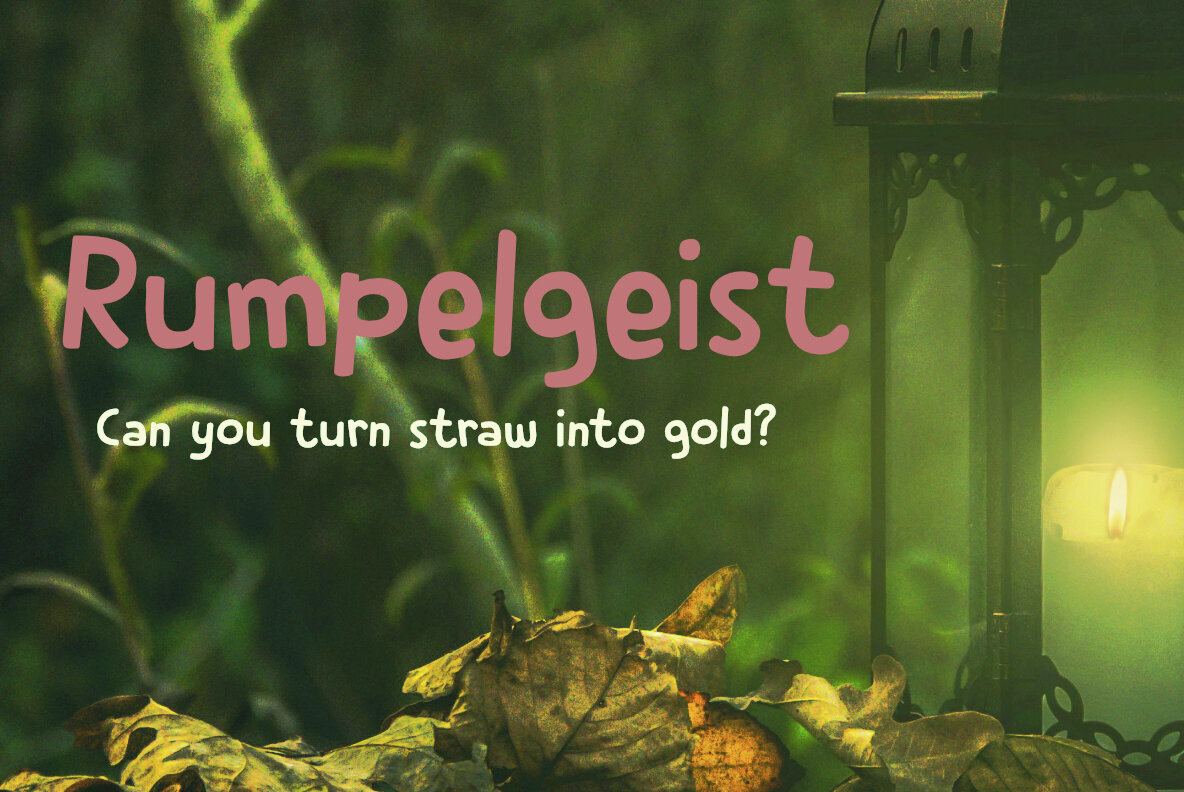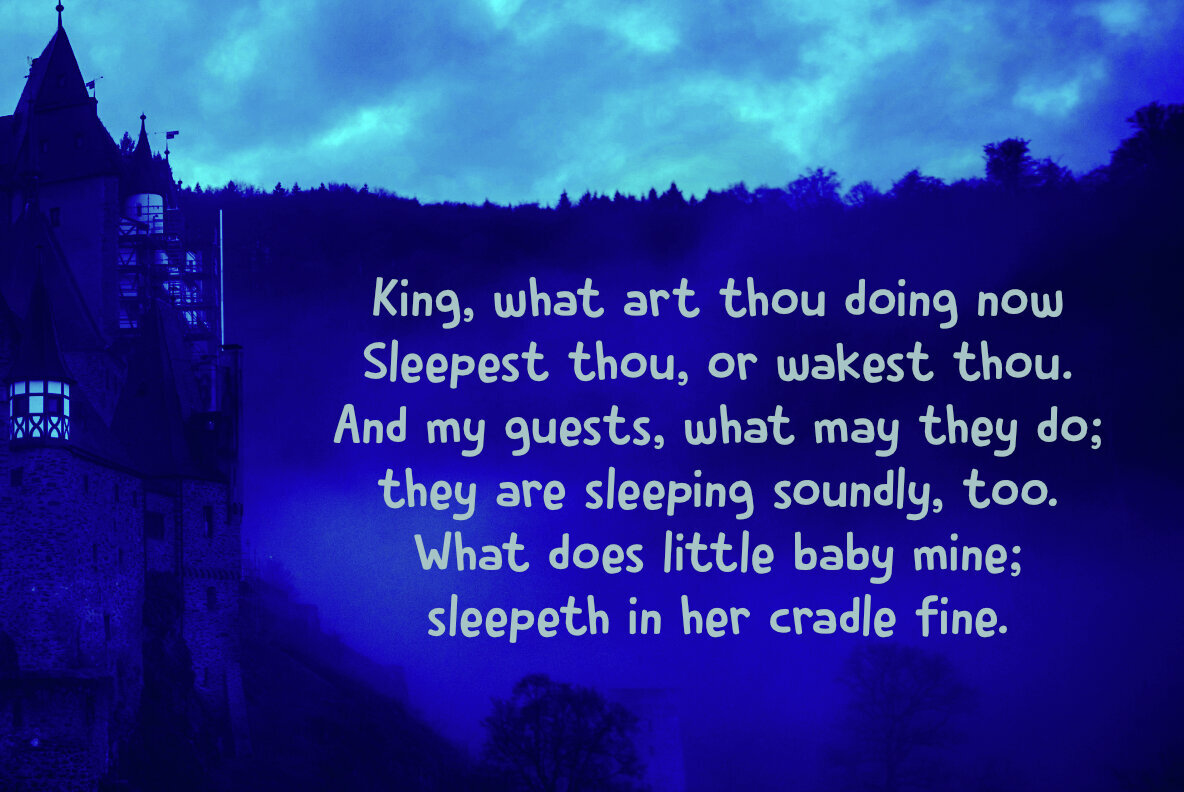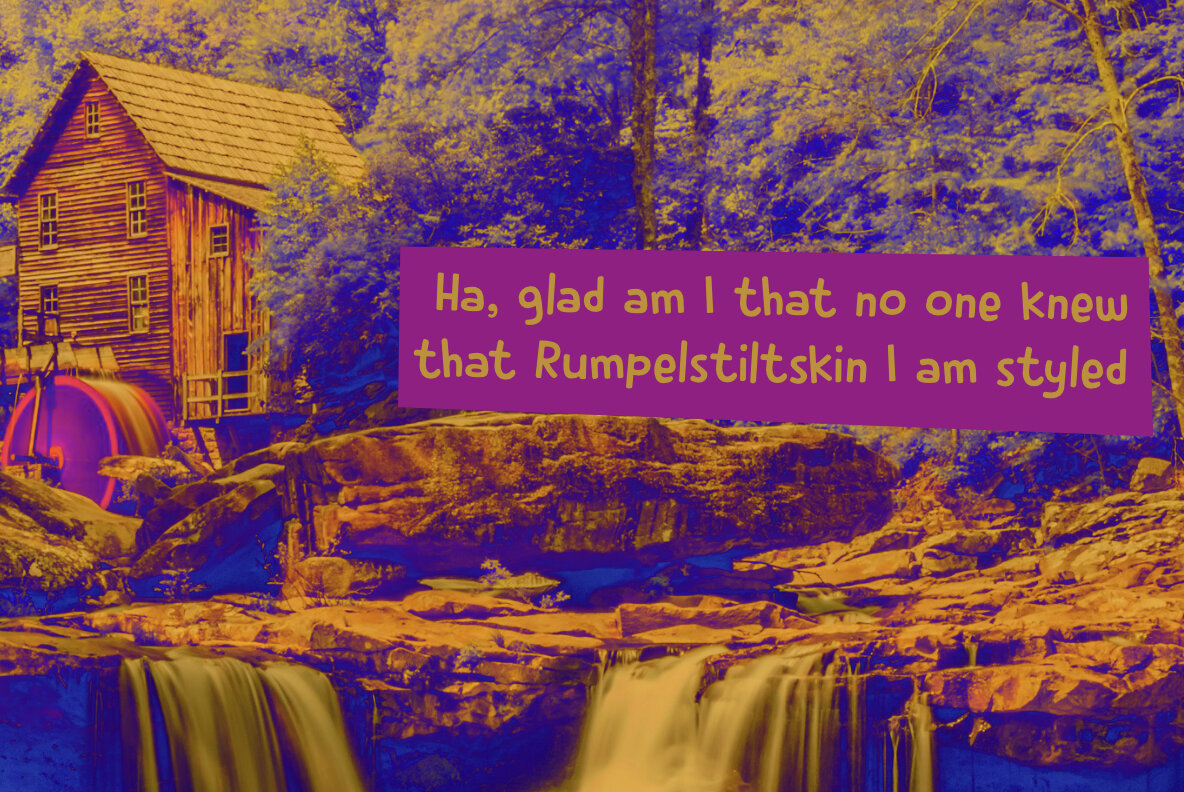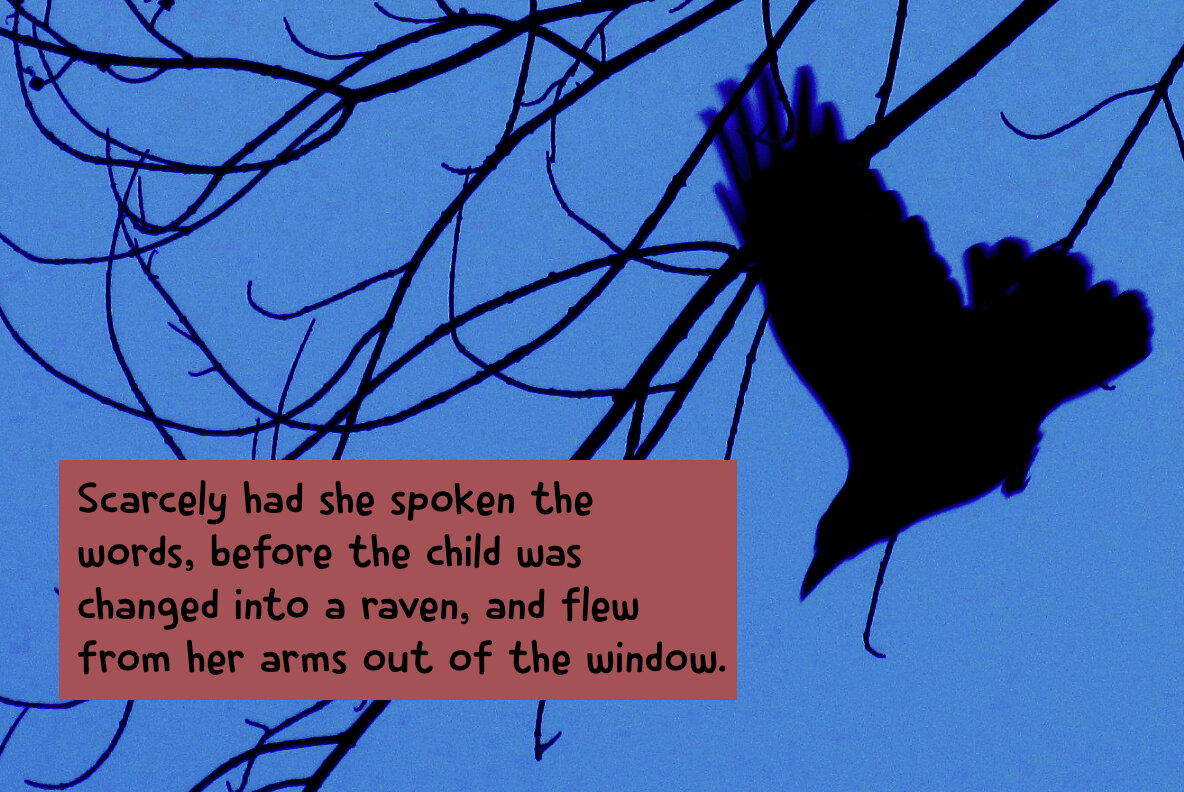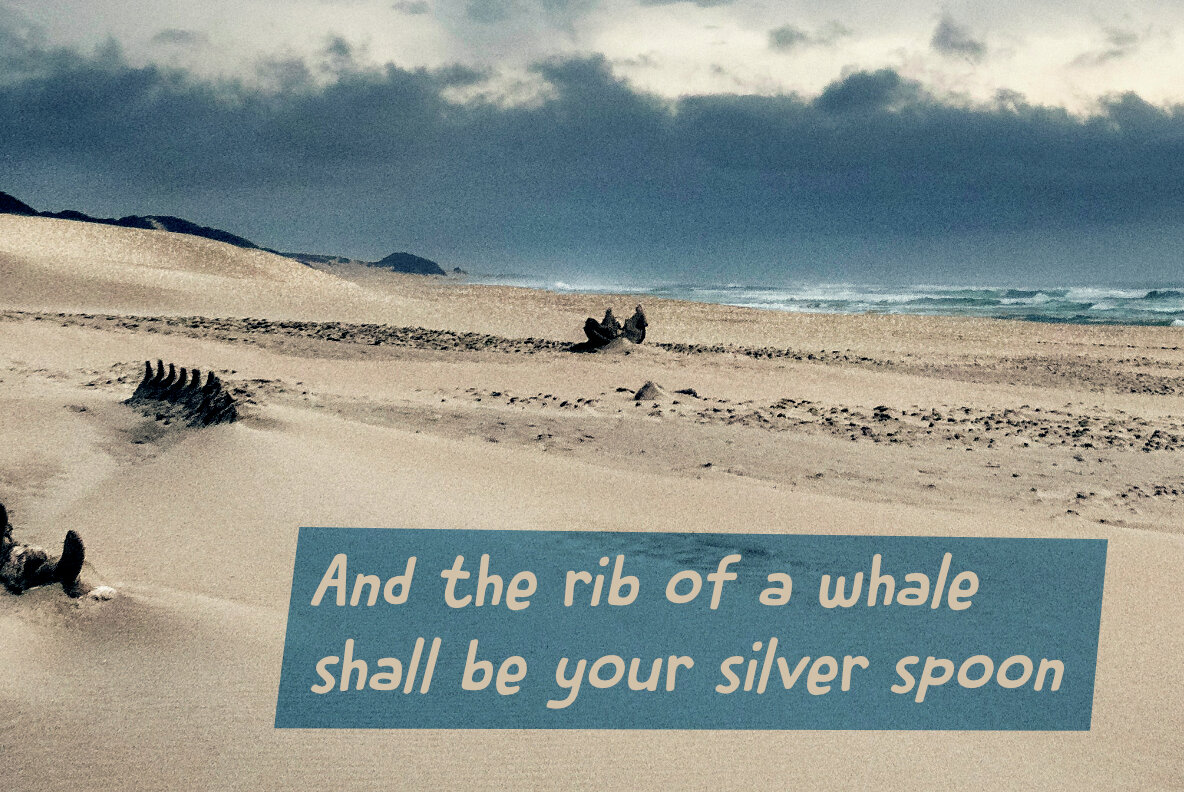
Rumpelgeist Font
Back in 2011, the original Rumpelstiltskin font was introduced but lacked comprehensive glyphs due to limited design knowledge at the time. The new Rumpelgeist font emerges as a revitalized version, so thoroughly enhanced that it warranted a new name. Named after the German term for "rattling ghost" or "poltergeist," Rumpelgeist captures an ethereal and whimsical essence, potentially inspired by the Grimm brothers’ original fairy tale.
Rumpelgeist offers extensive language support, making it suitable for a wide range of design projects. This font combines a playful, haunted quality with refined craftsmanship, ensuring readability while adding a magical touch to your work. Ideal for creative endeavors requiring a unique, storybook feel, Rumpelgeist is a testament to evolved design expertise and imagination.